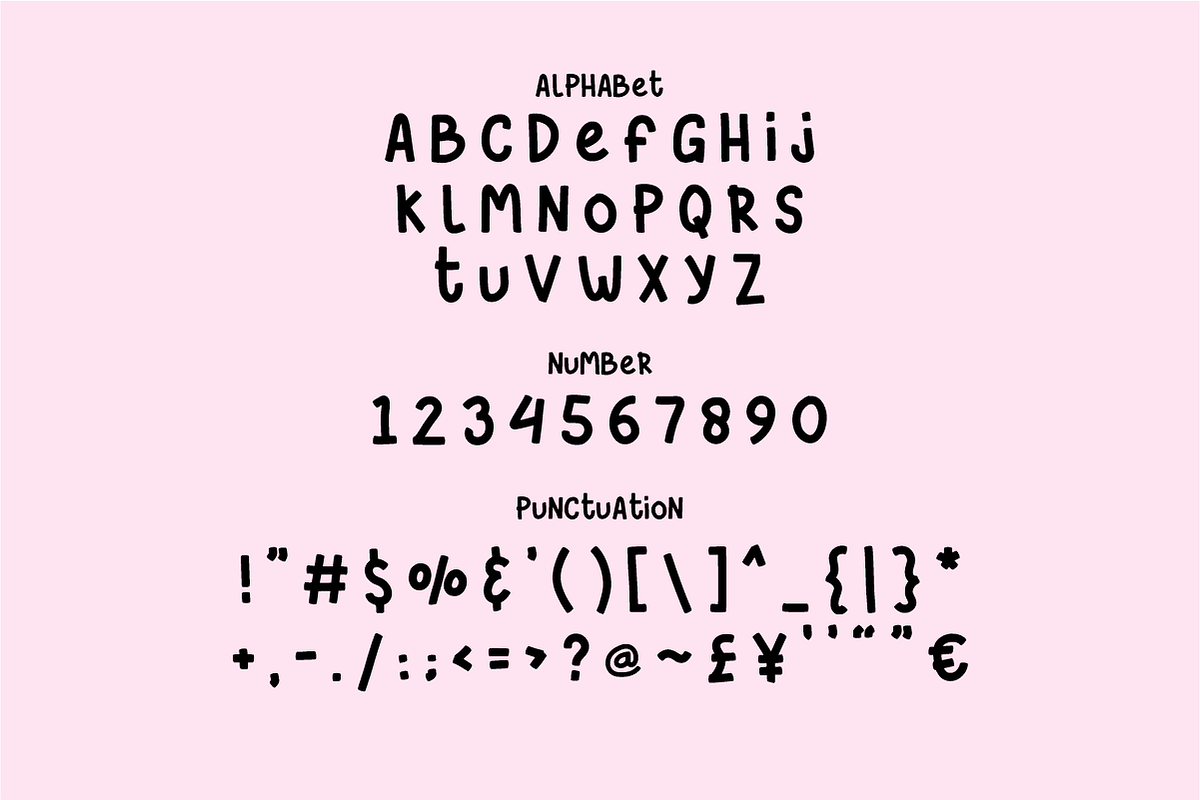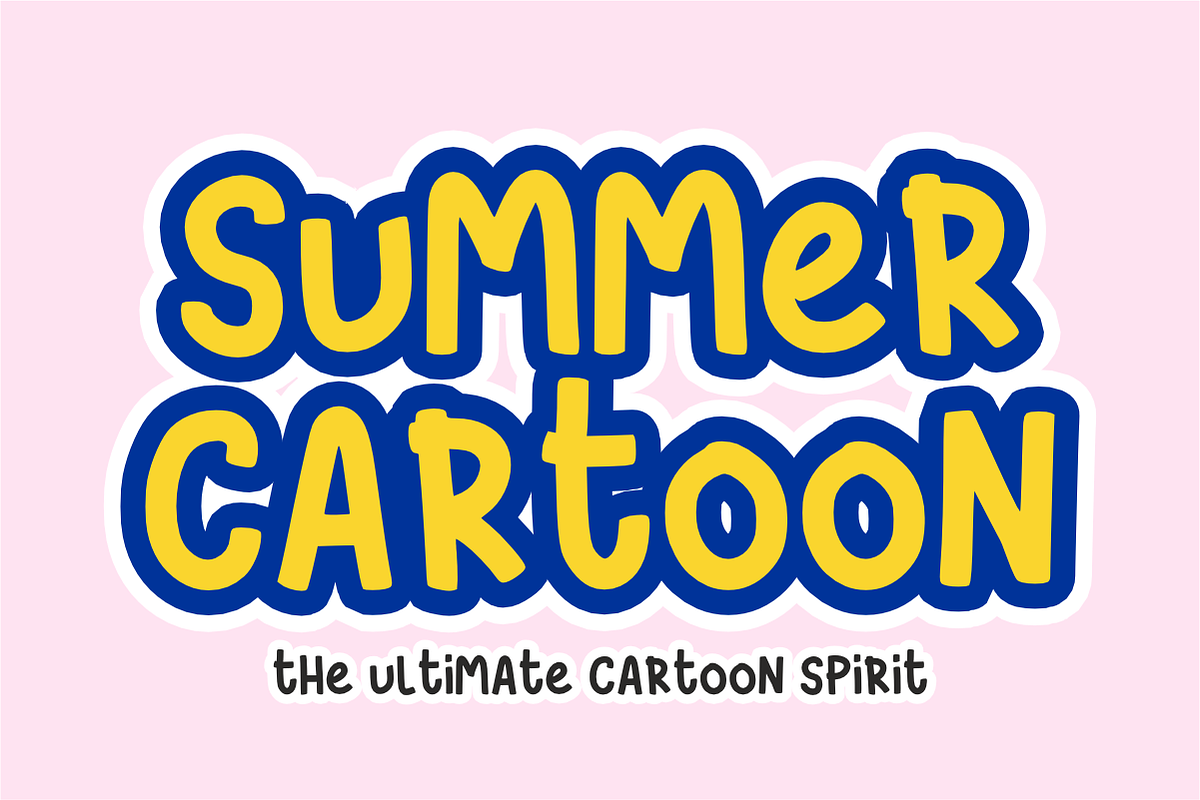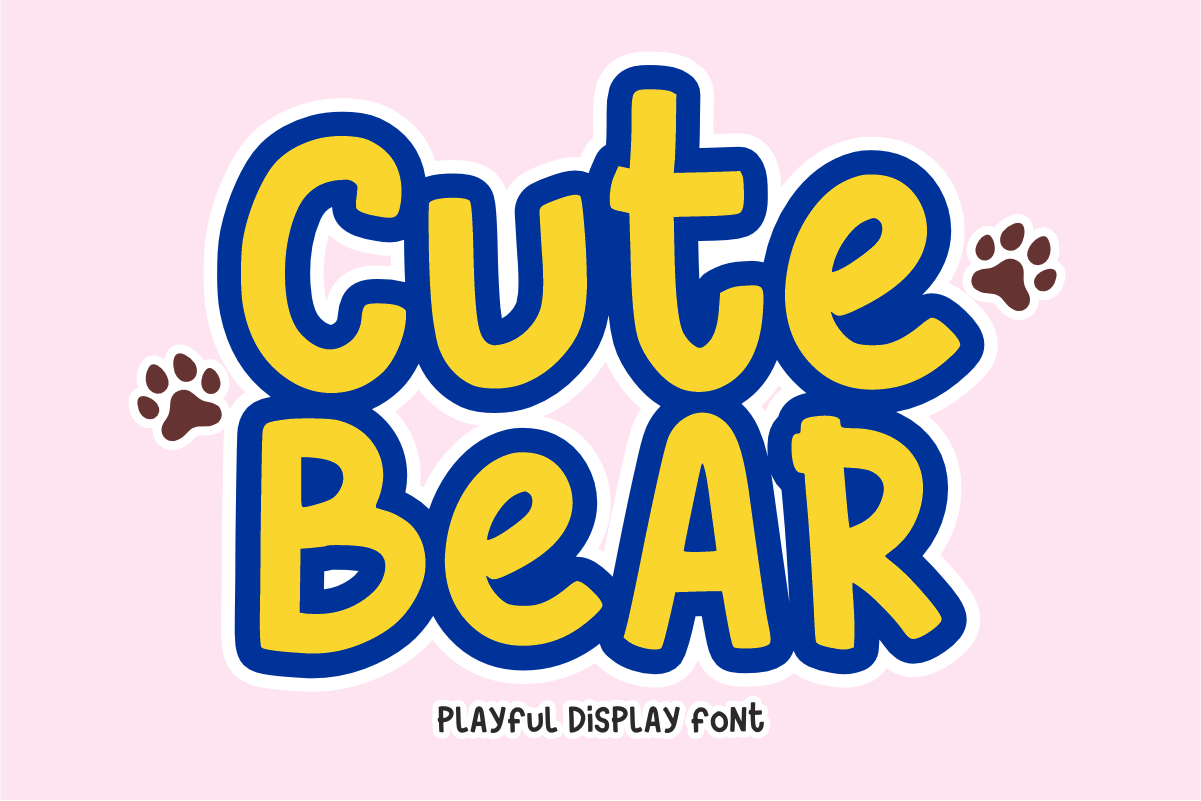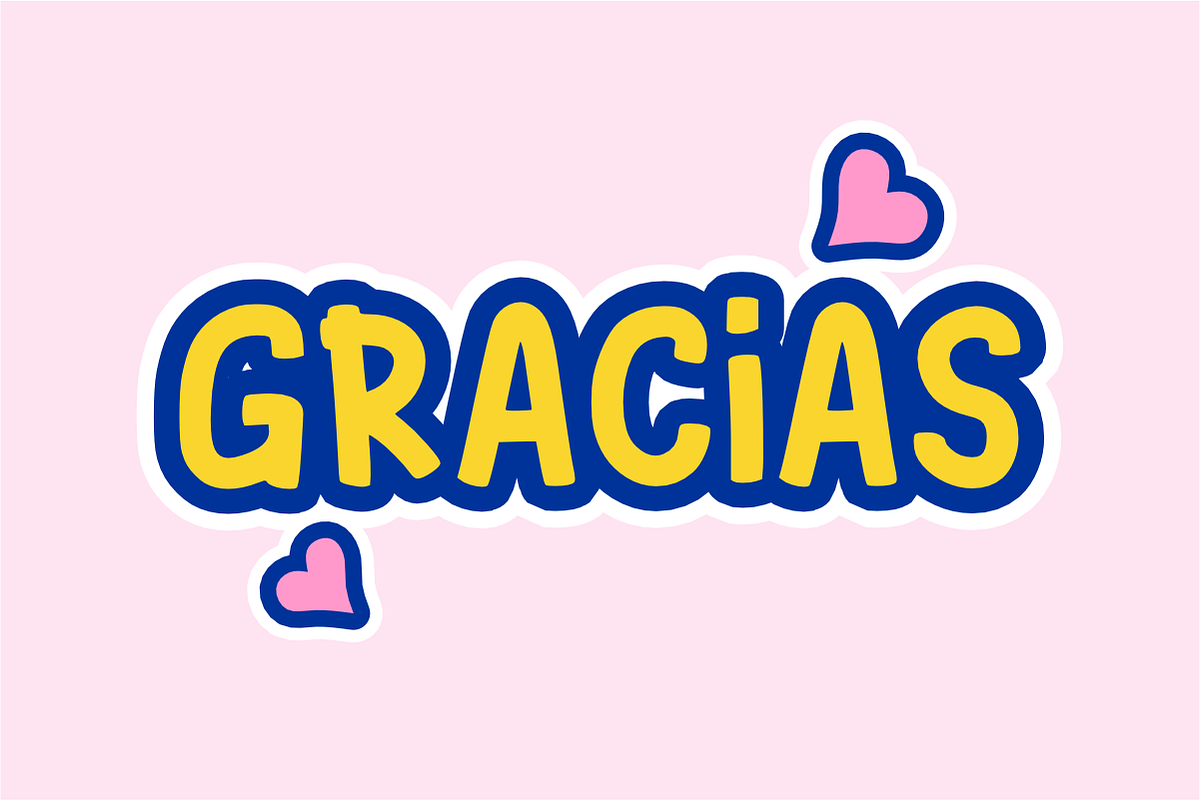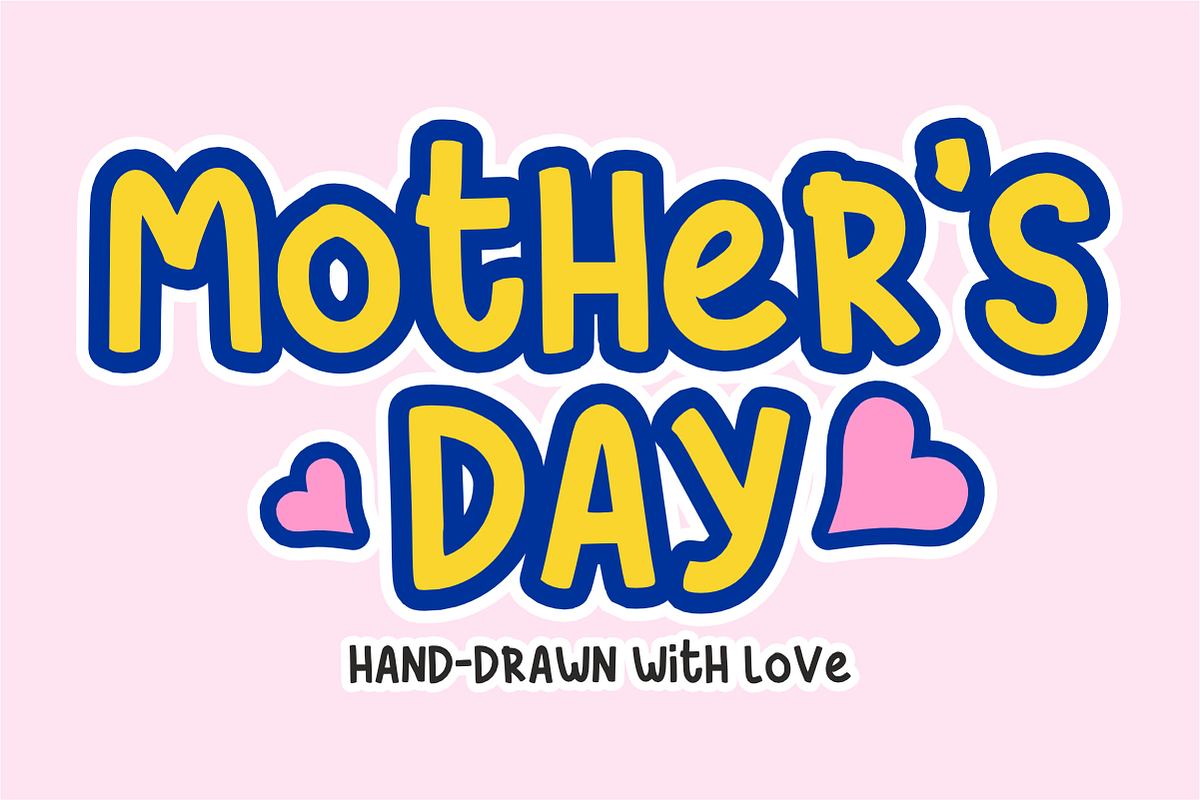
Cute Bear - Playful Display Font
Cute Bear is an adorable, bouncy, and playful display font featuring thick, hand-drawn letterforms with a charming animal-themed vibe. Perfect for kids' crafts, cute sticker packs, nursery decor, and storybook titles, this sweet font brings instant happiness and cozy warmth to all your creative projects. Every character is cleanly vectorized to guarantee high-resolution prints and smooth, effortless cutting on Cricut and Silhouette machines.